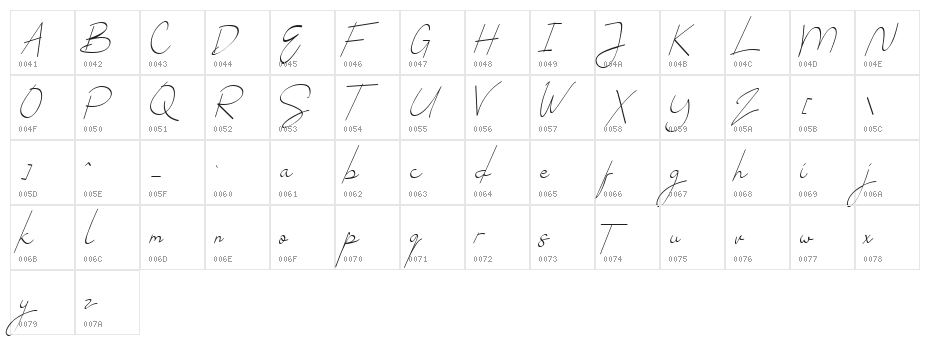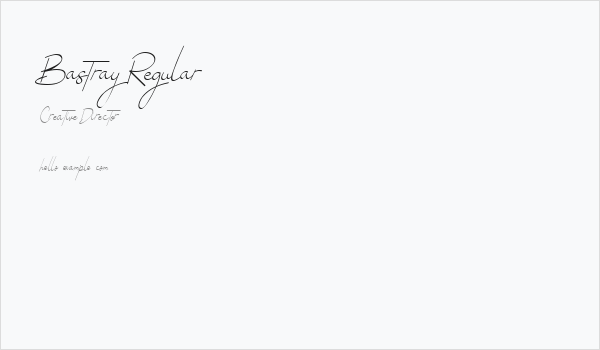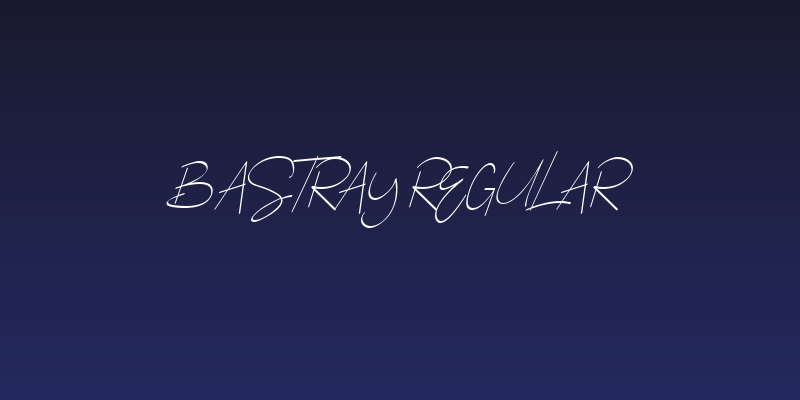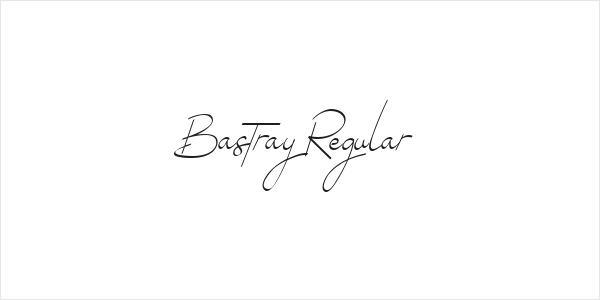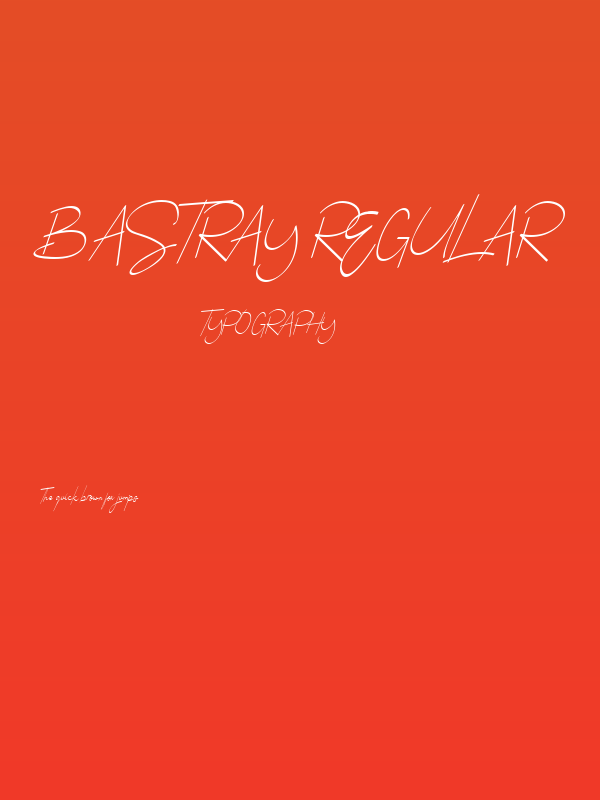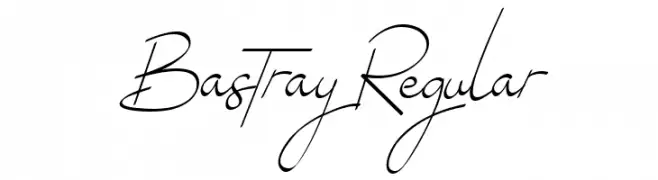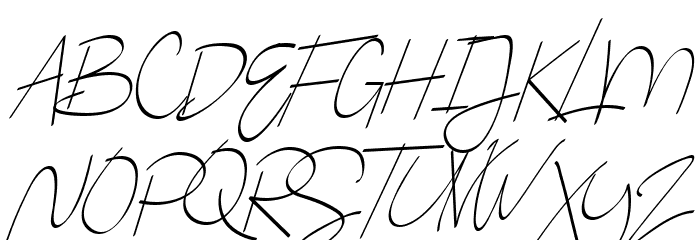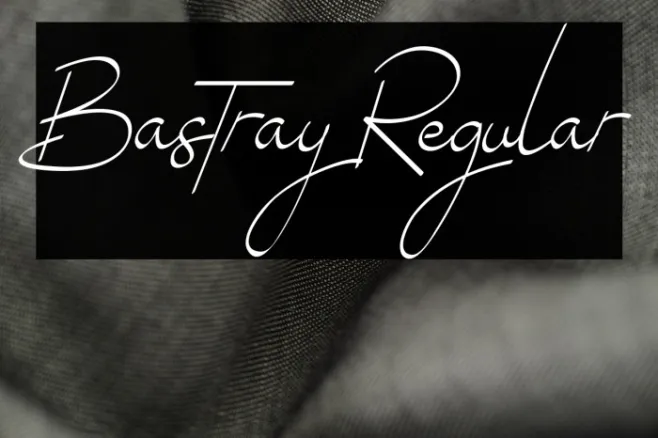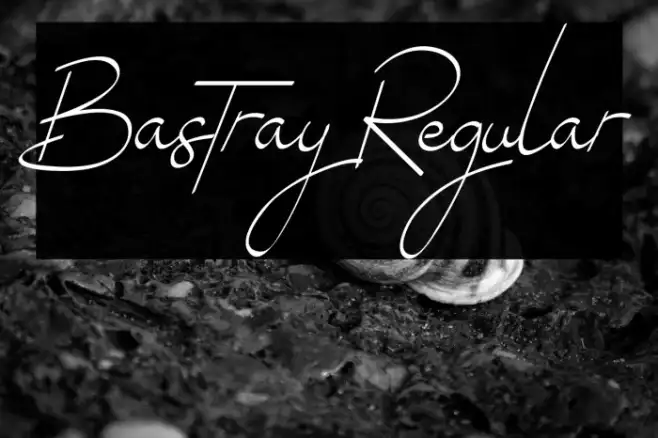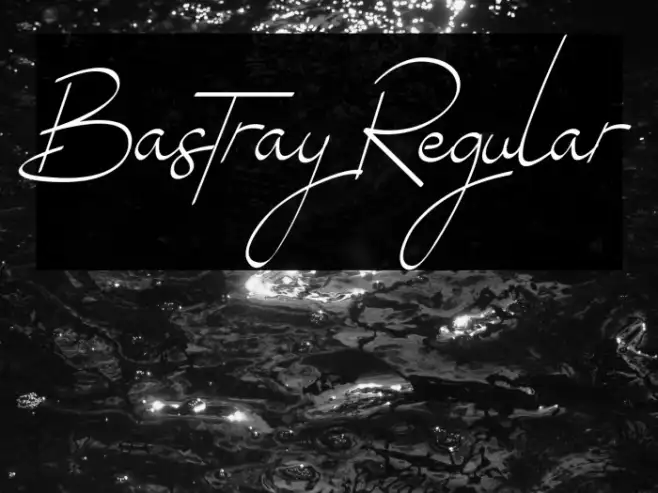
Bastray Regular Font
A highly stylized, handwritten script font with elongated, angular letterforms and a loose, energetic flow. The strokes are thin and consistent, giving a sketch-like, spontaneous appearance. The characters are tall with pronounced ascenders and descenders, and the spacing is irregular, enhancing the casual, expressive feel.
Fonts by Nabila
| Overall Style | Decorative, Artistic, Modern |
| Use Case | Logos, Headlines, Posters, Artistic projects |
| Proposed Projects | Album covers, fashion branding, artistic posters, personal signatures, creative invitations. |